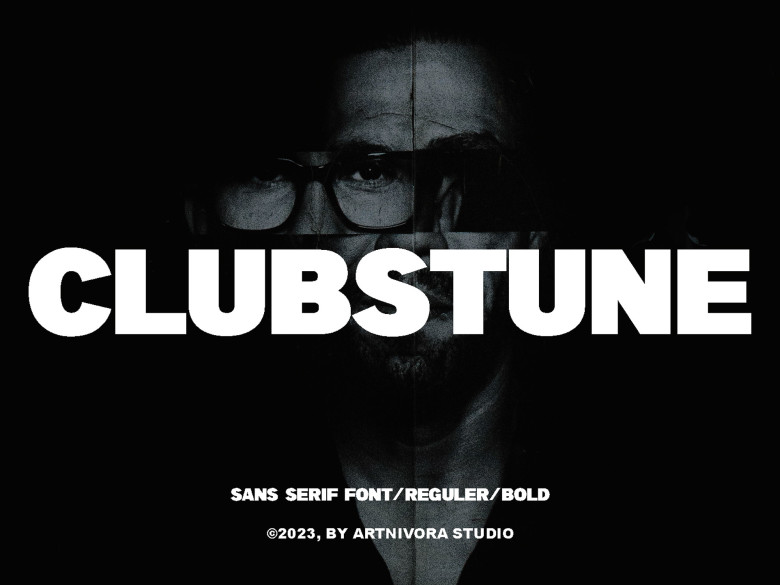
Clubstune Font
Clubstune is a versatile sans serif font designed to bring elegance and distinction to logo designs, magazines, brochures, social media posts and other applications.
Clubstune Sans Serif Font